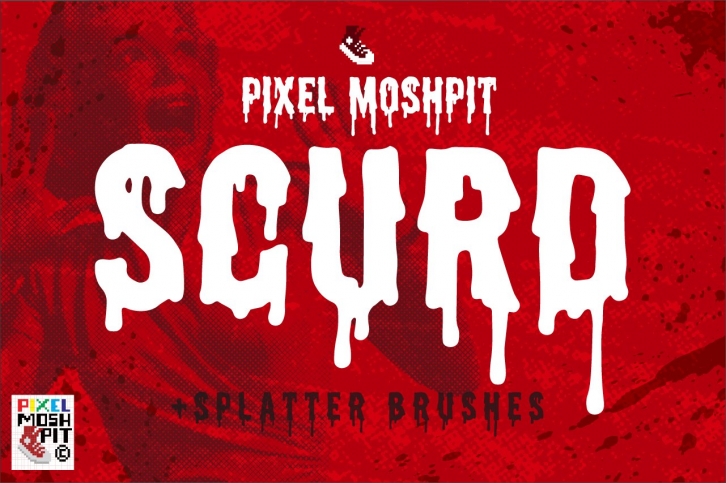
Introducting SCURD a deliciously drippy font for all your horrific and paint soaked copy situations!
Who doesn't love a good dripping, bloody font? Well we felt the need to introduce a readable drip that has the punch that Franchise and Bebas has but with a more fun and krink look to them.